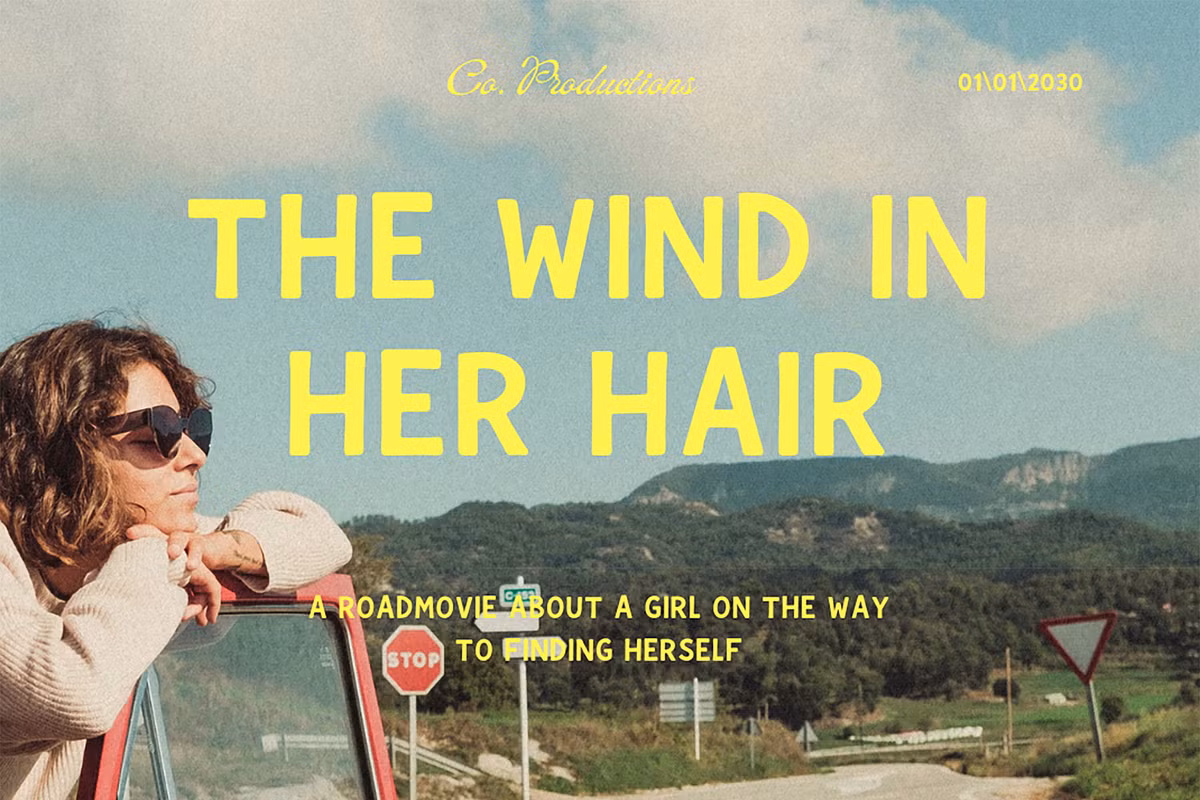
Handwritten Editorial Sans Serif: Modern Font for Elegant Branding
Introduction to Rive Gauche
Rive Gauche is a really cool font that can help make your brand look great. It’s a modern sans serif font that’s got a special touch – it looks a bit like it was written by hand. This makes it stand out and gives it a lot of personality. If you’re looking to create a unique visual identity, Rive Gauche is a great choice. It’s perfect for things like editorial layouts, social media graphics, and fashion branding. Really, it’s a great tool for any designer or business that wants to look fresh and stylish. With Rive Gauche, you can create a brand that’s both elegant and fun, which is a pretty hard combination to find. So, if you want to elevate your branding and make it look amazing, Rive Gauche is definitely worth checking out.
Design Style of Rive Gauche
The style of Rive Gauche is simple and elegant, with clean lines and smooth curves that bring together structure and softness in a perfect way. This modern font is easy to read and has a warm, personal feel that sets it apart. The handwritten touch adds a creative and personal element, making it a great choice for brands that want to build a stronger emotional connection with their customers. With its unique blend of simplicity and personality, Rive Gauche is a font that can help brands stand out and make a lasting impression.
Its clean design and gentle curves make it perfect for a wide range of applications, from branding and advertising to digital media and more. Overall, Rive Gauche is a versatile and effective font that can help brands communicate their message with style and emotion.
Font Features
Rive Gauche has a special quality that sets it apart from other digital fonts. It has a human touch that reminds us of traditional typography, but it also incorporates modern design elements. This unique blend enables it to work perfectly in different design settings, whether it’s a simple logo or an elegant invitation. As a result, brands can use Rive Gauche to communicate their message with both clarity and style, making it a versatile and effective choice for various design needs.
With its ability to balance classic and contemporary elements, Rive Gauche helps brands stand out and convey their message in a way that’s both visually appealing and easy to understand.
Use Cases for Rive Gauche
Rive Gauche is a really flexible font that works well in lots of different situations. It can help you get great results in many areas, such as:
- Logos: Rive Gauche has a style that’s both elegant and easy to like, making it perfect for logos that want to look simple, yet sophisticated and modern.
- Editorial Layouts: Rive Gauche is great for making editorial layouts look good, whether it’s for a magazine, a website, or a brochure.
- Social Media: Rive Gauche is really good for social media because it’s unique and catches your eye.
- Fashion Branding: Fashion brands can use Rive Gauche to make their ads and messages look really stylish and fancy.
By doing this, they can make their brand look more sophisticated and high-end, which is great for attracting customers who love fashion and want to stay on top of the latest trends.
Pairing Suggestions for Rive Gauche
The font is easy to read at different sizes, which makes it good for printing and digital use. It works well for big headings or small body text, making your writing look great and easy to understand.